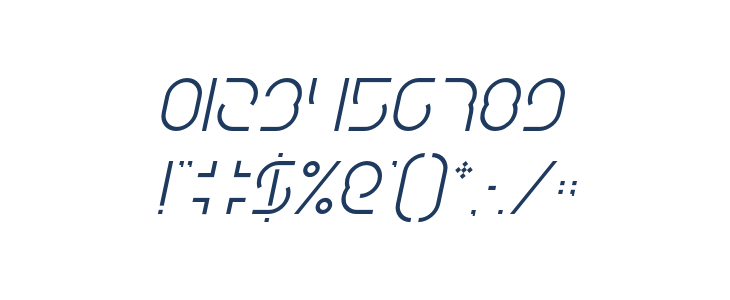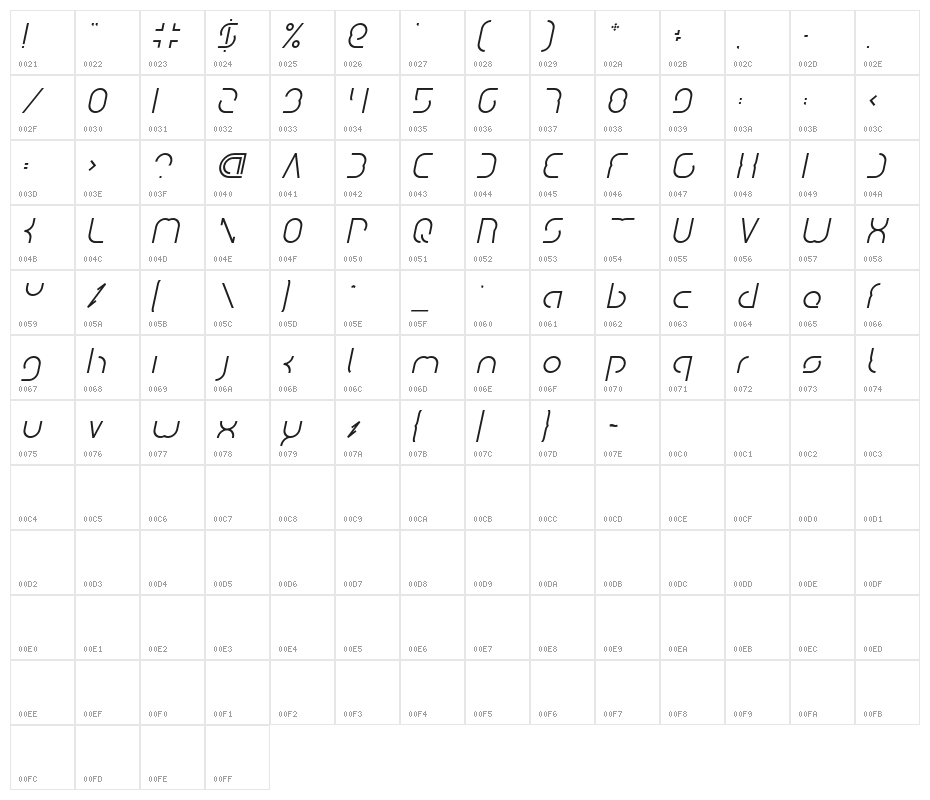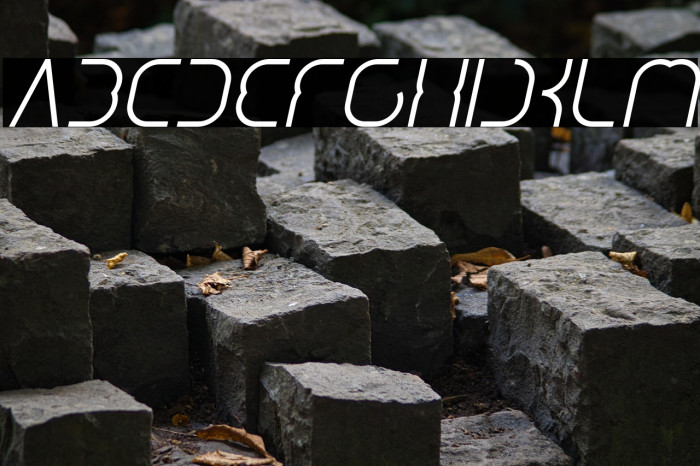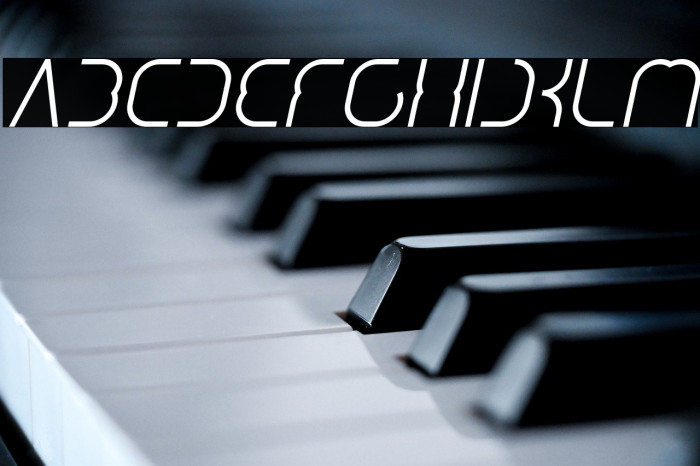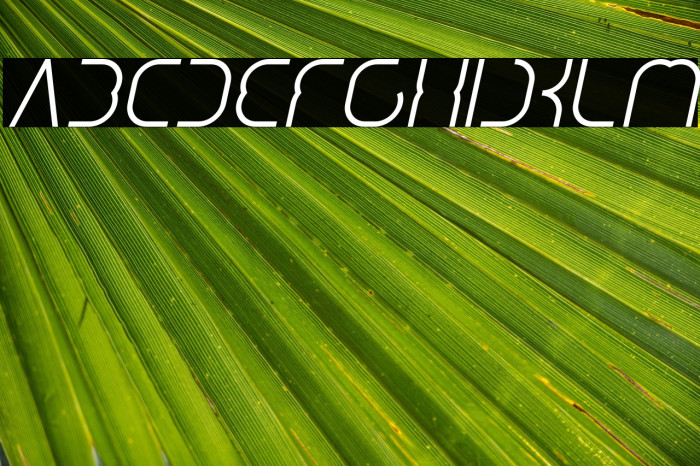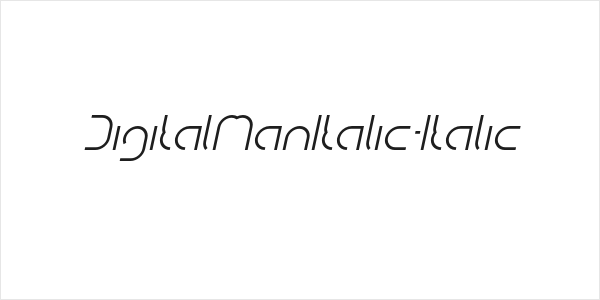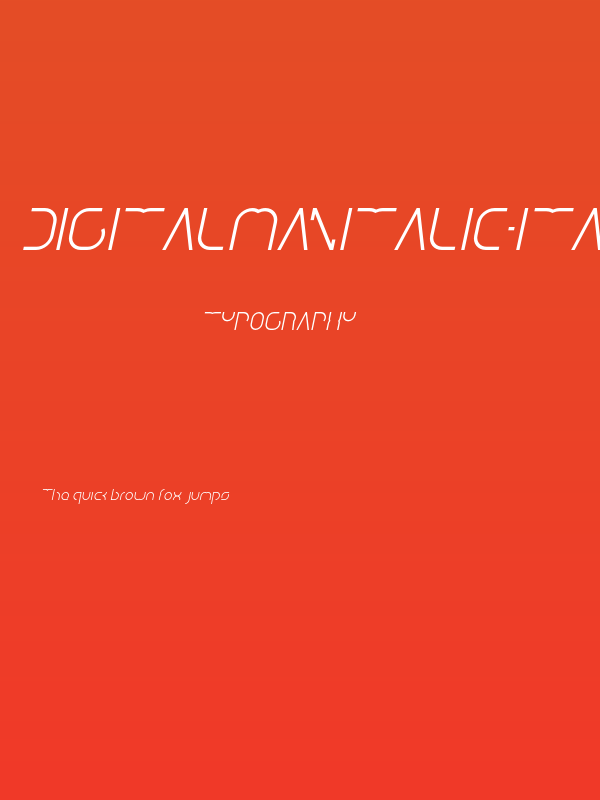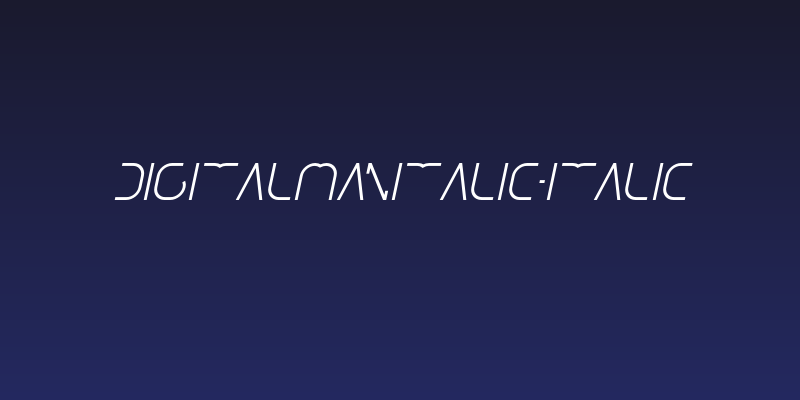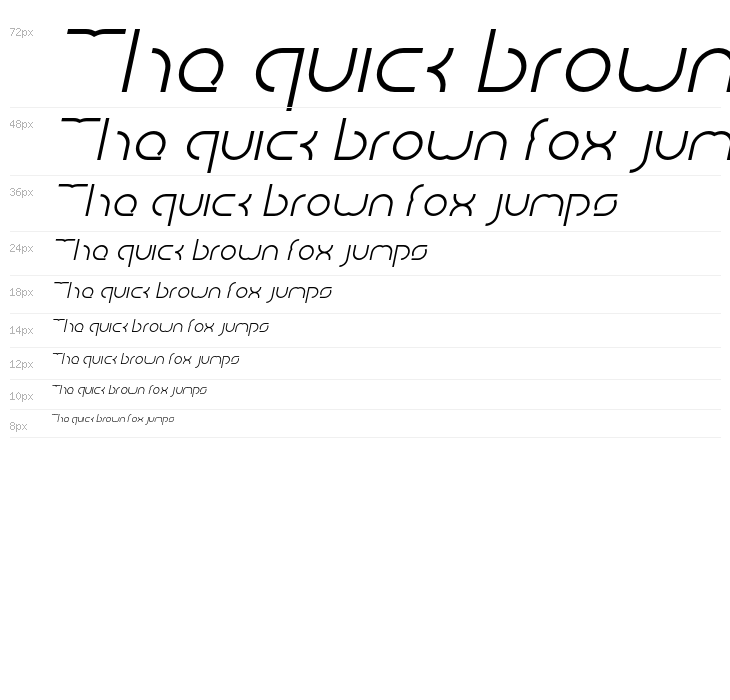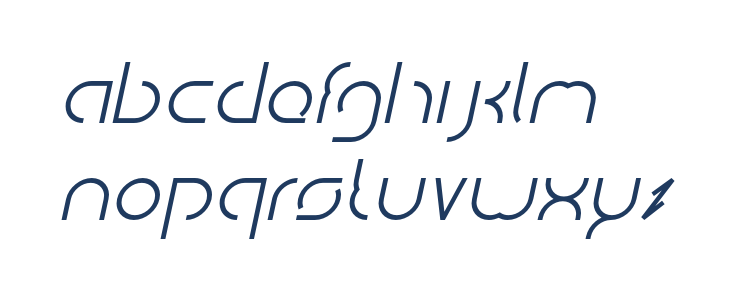
DigitalManItalic-Italic Font
DigitalManItalic-Italic Description
This font features a sleek, futuristic design with a distinct italic slant, giving it a dynamic and forward-moving appearance. The characters are crafted with smooth curves and sharp angles, creating a sense of speed and modernity. The uppercase and lowercase letters maintain a consistent style, with a slight disconnect in some strokes that adds to its digital aesthetic. The numerals and special characters follow the same design principles, ensuring uniformity across all glyphs. This font is ideal for projects that require a contemporary and tech-savvy look.
| Use Case | Headlines, Logos, Digital interfaces |
| Proposed Projects | Ideal for tech branding, digital interfaces, sci-fi themed designs, and modern advertising. |